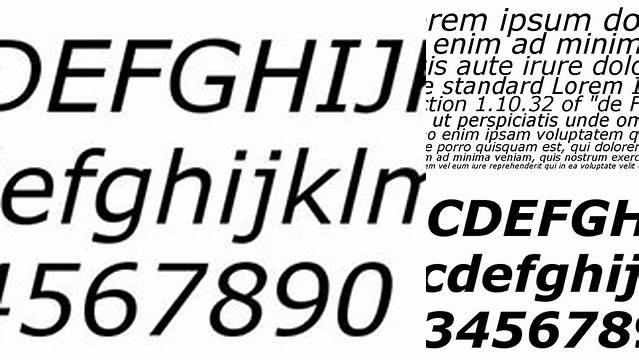
The Verdana Italic font is more than just a typeface; it’s a design staple that has stood the test of time. Its clean lines and excellent readability make it a go-to choice for a wide range of applications, from web design to print media. Whether you’re a seasoned designer or just starting out, understanding the nuances of Verdana Italic can significantly enhance your projects. This font isn't just about aesthetics; it's about functionality and clarity. Its design ensures that text remains legible even at small sizes, a crucial factor in today's digital world where screen resolution varies greatly. The subtle slant of the italic version adds a touch of elegance and emphasis, making it perfect for highlighting key points or creating visual interest within a text-heavy layout. The beauty of Verdana Italic lies in its simplicity and versatility. It's a font that doesn't scream for attention but subtly enhances the overall look and feel of any design. Its wide character width and generous spacing contribute to its readability, making it a user-friendly choice for both designers and readers. So, if you're looking for a font that combines functionality with a touch of sophistication, Verdana Italic is definitely worth considering. In the following sections, we'll explore its history, unique characteristics, and where you can download it for free, ensuring you have all the information you need to make the most of this fantastic typeface.
What is Verdana Italic?
So, what exactly is Verdana Italic? Well, it's a sans-serif typeface designed by Matthew Carter for Microsoft in 1996. It’s a variant of the original Verdana font, but with a distinctive italic slant. Verdana was specifically created to be highly readable on computer screens, and the italic version carries these qualities beautifully. Verdana Italic features slightly elongated characters and a gentle slant, making it both elegant and functional. Its design prioritizes legibility, ensuring that text remains clear even at smaller sizes. This makes it a popular choice for web design, where screen resolution and readability are crucial factors. The font's open letterforms and generous spacing contribute to its overall clarity, making it a user-friendly option for both designers and readers. One of the key features of Verdana Italic is its versatility. It works well in a variety of design contexts, from body text to headings, and its clean, modern appearance complements a wide range of styles. Whether you're designing a website, creating marketing materials, or working on a print project, Verdana Italic can be a valuable asset in your typographic toolkit. Its subtle elegance adds a touch of sophistication to any design, while its functionality ensures that your message is conveyed clearly and effectively. In addition to its aesthetic appeal and readability, Verdana Italic also boasts excellent cross-platform compatibility. This means that it will look consistent across different operating systems and devices, ensuring that your design maintains its integrity regardless of where it's viewed. This is particularly important in today's digital landscape, where users access content on a variety of devices with varying screen resolutions. With Verdana Italic, you can be confident that your text will always be rendered accurately and legibly.
History and Origin of the Verdana Font Family
Let's take a quick trip down memory lane! The Verdana font family was commissioned by Microsoft and designed by the renowned type designer Matthew Carter. The goal? To create a font that excelled in on-screen readability, especially in the early days of the internet when screen resolutions were much lower than today. Verdana was released in 1996 and quickly became a staple in the design world. The inspiration behind Verdana came from Carter's desire to create a typeface that was both functional and aesthetically pleasing on digital displays. He carefully considered the challenges of rendering text on screens, such as pixelation and distortion, and designed Verdana with these issues in mind. The result was a font that was exceptionally clear and legible, even at small sizes, making it an ideal choice for web design and other digital applications. One of the key innovations in Verdana's design was its generous letter spacing and wide character width. These features helped to prevent letters from crowding together on screen, which could make text difficult to read. Carter also paid close attention to the shape and proportions of each character, ensuring that they were easily distinguishable from one another. This meticulous attention to detail is what sets Verdana apart from other sans-serif typefaces and contributes to its superior readability. The success of Verdana led to the development of several variations, including the Verdana Italic font. The italic version retains the same clarity and legibility as the original, but with a subtle slant that adds a touch of elegance and emphasis. Verdana Italic quickly became a popular choice for highlighting key points within text, creating visual interest, and adding a more informal tone to designs. Over the years, Verdana has remained a favorite among designers and users alike. Its timeless design and exceptional readability have made it a go-to font for a wide range of applications, from websites and documents to presentations and marketing materials. Its legacy as one of the most influential digital typefaces of the late 20th century is well-deserved, and its continued relevance in the 21st century is a testament to its enduring quality.
Key Characteristics of Verdana Italic
So, what makes Verdana Italic special? Several key characteristics set it apart:
- Readability: Verdana Italic is designed for exceptional readability, especially on screens.
- Clean Lines: The font features clean, crisp lines, giving it a modern and professional look.
- Slight Slant: The italic version has a gentle slant, adding a touch of elegance.
- Versatility: Verdana Italic works well in various design contexts, from body text to headings.
- Sans-Serif: As a sans-serif font, it lacks the small decorative strokes found in serif fonts, making it cleaner and more contemporary.
Let's dive a bit deeper into each of these characteristics. The readability of Verdana Italic is arguably its most important feature. It was specifically designed to be highly legible on computer screens, which, in the early days of the internet, presented unique challenges due to lower screen resolutions. Matthew Carter's meticulous attention to detail ensured that each character was easily distinguishable, even at small sizes. This makes Verdana Italic an excellent choice for body text, where readability is paramount. The clean lines of Verdana Italic contribute to its modern and professional appearance. Its simplicity allows it to blend seamlessly into a wide range of design styles, from corporate communications to creative projects. The absence of serifs gives it a contemporary feel, making it a popular choice for websites, digital documents, and marketing materials. The slight slant of Verdana Italic is a subtle but significant design element. It adds a touch of elegance and sophistication to the font, making it suitable for highlighting key points within text or creating visual interest in a layout. The italic version retains the readability of the regular Verdana font but with an added flair that makes it stand out. Versatility is another key strength of Verdana Italic. It works well in a variety of design contexts, from headlines to captions, and its neutral tone ensures that it doesn't clash with other design elements. Whether you're designing a website, creating a brochure, or working on a presentation, Verdana Italic can be a valuable asset in your typographic toolkit. As a sans-serif font, Verdana Italic lacks the small decorative strokes (serifs) found in serif fonts. This gives it a cleaner, more modern appearance, making it a popular choice for digital applications. Sans-serif fonts are often preferred for on-screen reading because they tend to be more legible at smaller sizes than serif fonts. In summary, the key characteristics of Verdana Italic – its readability, clean lines, slight slant, versatility, and sans-serif nature – make it a highly effective and widely used typeface in the design world.
Why Designers Love Verdana Italic
Designers, both seasoned pros and newbies, adore Verdana Italic for many reasons. Its readability, as we've already discussed, is a major draw. But there's more to it than that! The font’s versatility means it can fit into various projects, from formal business documents to casual websites. Its clean aesthetic makes it easy to pair with other fonts and design elements. Plus, it’s a system font, meaning it’s pre-installed on many computers, ensuring consistent rendering across different platforms. Designers often gravitate towards Verdana Italic because of its ability to communicate clearly and effectively. In design, clarity is key, and Verdana Italic excels at delivering messages in a straightforward and easily digestible manner. Its simple, unadorned letterforms ensure that the focus remains on the content rather than the typeface itself. This makes it an ideal choice for projects where readability is paramount, such as websites, user interfaces, and technical documentation. The versatility of Verdana Italic is another reason why designers love it. It can adapt to a wide range of design styles and contexts, from corporate branding to editorial layouts. Its neutral tone allows it to blend seamlessly with other design elements, while its subtle elegance adds a touch of sophistication. Whether you're creating a minimalist design or a more elaborate composition, Verdana Italic can be a valuable asset in your typographic palette. Its ability to pair well with other fonts is also a significant advantage. Verdana Italic complements both serif and sans-serif typefaces, making it easy to create harmonious and visually appealing designs. Its clean lines and simple forms provide a solid foundation for building typographic hierarchies, allowing designers to emphasize key information and guide the reader's eye through the content. The fact that Verdana Italic is a system font is another practical reason for its popularity among designers. Because it comes pre-installed on many computers, designers can be confident that their designs will render correctly across different devices and operating systems. This eliminates the need to embed fonts or worry about font substitution, saving time and ensuring a consistent user experience. In addition to these practical considerations, designers also appreciate the aesthetic qualities of Verdana Italic. Its clean lines and subtle slant give it a modern and professional look, while its understated elegance adds a touch of refinement. It's a font that doesn't shout for attention but quietly enhances the overall design, making it a favorite among those who value simplicity and clarity.
Tips for Using Verdana Italic Effectively
So, you've got Verdana Italic – awesome! But how do you use it effectively? Here are a few tips:
- Use it sparingly for emphasis: Overusing italics can make your text look cluttered. Use Verdana Italic to highlight key points, not for entire paragraphs.
- Pair it wisely: Verdana Italic pairs well with other sans-serif fonts, like Arial or Helvetica. It can also create a nice contrast with serif fonts, like Times New Roman.
- Consider the context: Verdana Italic is great for digital content, but it also works well in print. Just make sure it fits the overall tone and style of your project.
- Maintain readability: Even though it’s designed for readability, avoid using Verdana Italic in very small sizes or in long blocks of text. Give your readers’ eyes a break!
So, there you have it! Verdana Italic is a fantastic font that can add a touch of elegance and readability to your projects. Whether you’re downloading it for personal or commercial use, always ensure you’re following the proper licensing. Happy designing, guys! We’ve covered everything from its history and characteristics to where you can download it for free and how to use it effectively. Remember, the key to great design is not just about having the right tools, but also knowing how to use them. With its clean lines, exceptional readability, and versatility, Verdana Italic is a valuable asset in any designer's toolkit. Its ability to excel in both digital and print environments makes it a go-to choice for a wide range of projects, from websites and documents to presentations and marketing materials. The fact that it's a system font ensures consistent rendering across different platforms, saving you time and effort. Whether you're a seasoned designer or just starting out, understanding the nuances of Verdana Italic can significantly enhance your work. Its subtle elegance and understated charm make it a font that doesn't demand attention but quietly elevates the overall design. By following the tips and guidelines we've discussed, you can effectively incorporate Verdana Italic into your projects and create visually appealing and readable designs. So, go ahead and experiment with Verdana Italic in your next project. Explore its versatility, play with different font pairings, and discover the unique qualities that make it a favorite among designers worldwide. Remember, the best way to learn is by doing, so don't be afraid to try new things and push the boundaries of your creativity. With Verdana Italic, you have a powerful tool at your disposal to communicate your message clearly, effectively, and with a touch of sophistication. And if you're ever in doubt, remember the golden rule of typography: readability is paramount. Choose fonts that are easy on the eyes, and your designs will thank you for it.